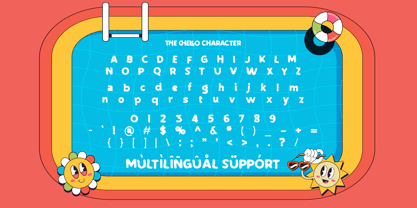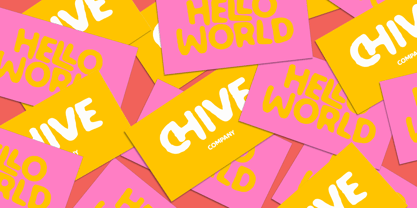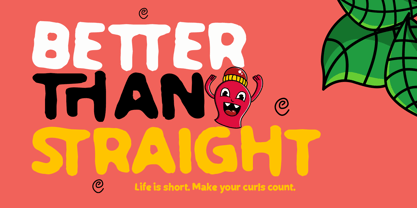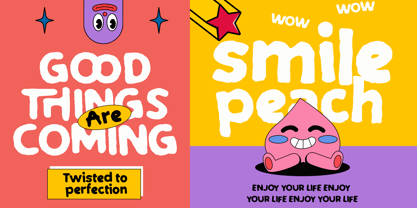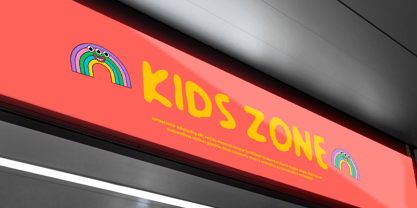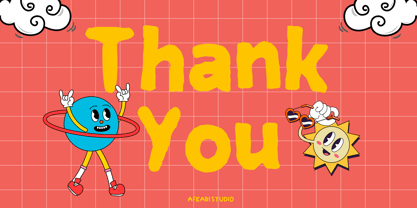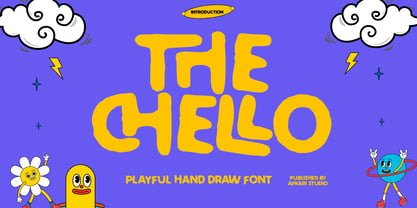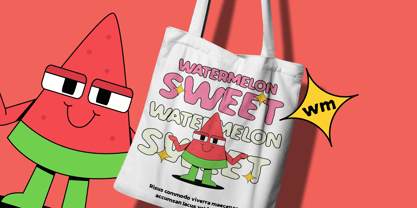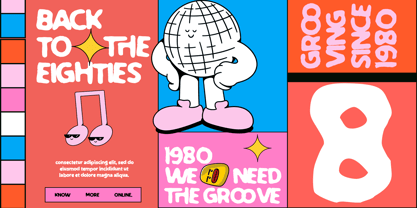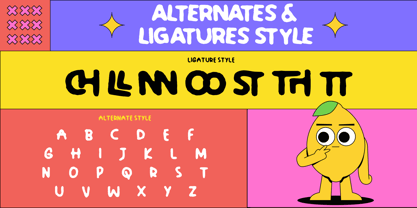
The Chello
The The Chello Font Family was designed by Musthafa Kamal Emje and published by Afkari Studio. The Chello contains 1 styles. More about this family
The Chello is a playful display font designed to bring joy, creativity, and lively personality into your designs. With its bold shapes and friendly character, this font creates an eye-catching and cheerful appearance that instantly makes designs feel more fun and approachable. Featuring smooth curves and playful letterforms, The Chello works beautifully for projects that need a friendly and energetic tone. Whether used in headlines, branding, or creative promotions, this font keeps text readable while adding a distinctive playful charm. Perfect for designers looking to create typography that feels fun, modern, and expressive, The Chello adds a delightful touch to both digital and print projects. Highlighted Features: - Clean, modern letterforms - Uppercase & lowercase letters - Numbers & punctuation - Fully accessible without additional design software. - Mültîlíñgúãl Sùppört for; ä ö ü Ä Ö Ü ß ¿ ¡ Add cheerful personality and bold fun into your designs with The Chello – Playful Display Font, a typeface created to make creative projects stand out.